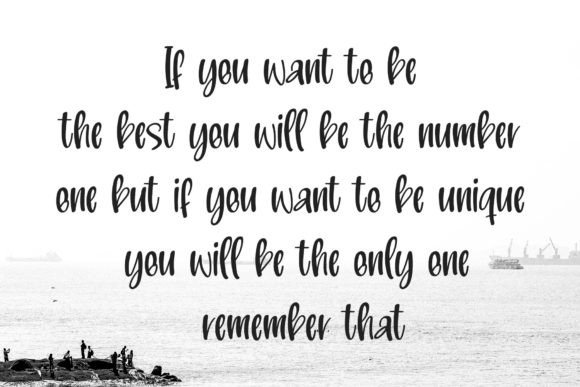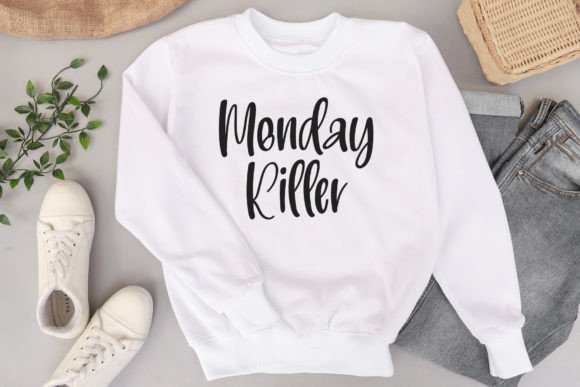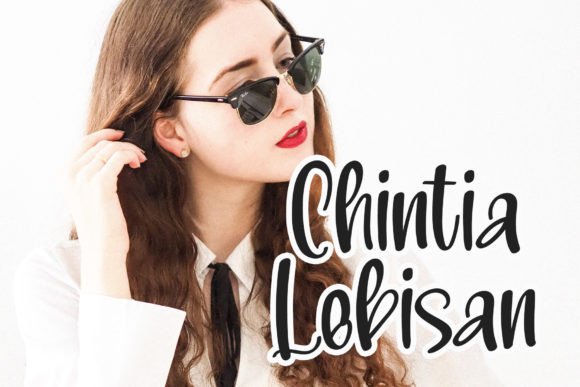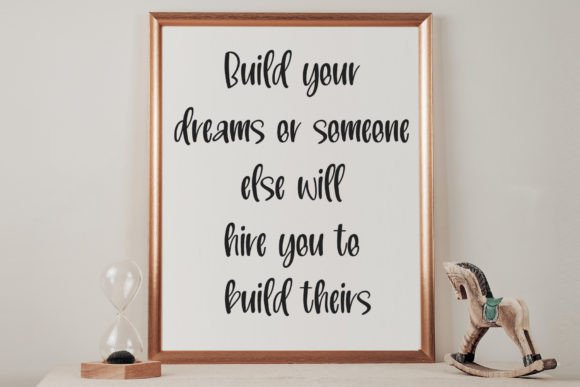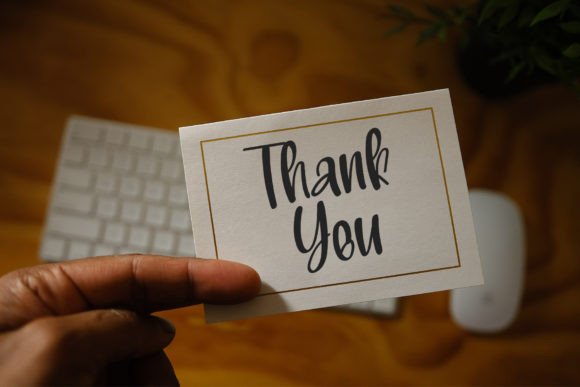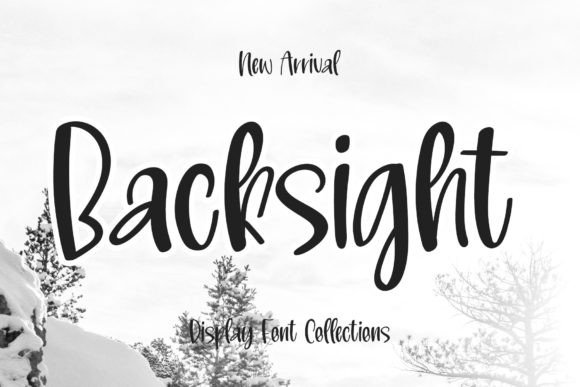
Introducing Backsight Font: Elevate Your Designs with Elegance and Sophistication
Are you a designer or crafter looking for a font that can add a touch of luxury and sophistication to your projects? Look no further than Backsight Font, a sweet and beautiful handwritten font that is sure to elevate your designs to the next level. Featuring characters that dance along the baseline, Backsight Font is the perfect choice for anyone looking to add a bit of elegance and whimsy to their work.
What Makes Backsight Font So Special?
Backsight Font is a unique and eye-catching font that is sure to make your designs stand out from the crowd. Its handwritten style gives it a personal and organic feel, while its dancing characters add a touch of playfulness and whimsy. Whether you’re working on a branding project, a wedding invitation, or a craft project, Backsight Font is the perfect choice for anyone looking to add a bit of luxury and sophistication to their design.
Key Features of Backsight Font
• Handwritten style: Backsight Font features a beautiful handwritten style that gives it a personal and organic feel.
• Dancing characters: The characters in Backsight Font dance along the baseline, adding a touch of playfulness and whimsy to your designs.
• Luxury and sophistication: Backsight Font is the perfect choice for anyone looking to add a bit of luxury and sophistication to their designs.
• Versatile: Backsight Font can be used for a wide range of design projects, from branding and advertising to wedding invitations and craft projects.
How to Use Backsight Font in Your Designs
Backsight Font is easy to use and can be incorporated into your designs in a variety of ways. Here are a few ideas to get you started:
• Branding and advertising: Use Backsight Font to add a touch of luxury and sophistication to your branding and advertising materials, such as logos, business cards, and brochures.
• Wedding invitations: Backsight Font is the perfect choice for wedding invitations, adding a touch of elegance and whimsy to your wedding stationery.
• Craft projects: Backsight Font can be used for a wide range of craft projects, from scrapbooking and card making to journaling and mixed media.
Tips for Getting the Most Out of Backsight Font
Here are a few tips for getting the most out of Backsight Font:
• Experiment with different colors: Backsight Font looks great in a variety of colors, so don’t be afraid to experiment and find the perfect color for your design.
• Pair with other fonts: Backsight Font pairs well with a variety of other fonts, so try pairing it with a bold font for a striking contrast.
• Use it sparingly: Backsight Font is a statement font, so use it sparingly to add a touch of luxury and sophistication to your designs.
Font Name Backsight Font
Author YanStudio
Backsight Font is a beautiful and elegant handwritten font that is sure to elevate your designs to the next level. With its dancing characters and luxurious feel, it’s the perfect choice for anyone looking to add a bit of sophistication and whimsy to their work. Whether you’re a designer, crafter, or DIY enthusiast, Backsight Font is a must-have font that is sure to inspire your creativity and take your designs to new heights.